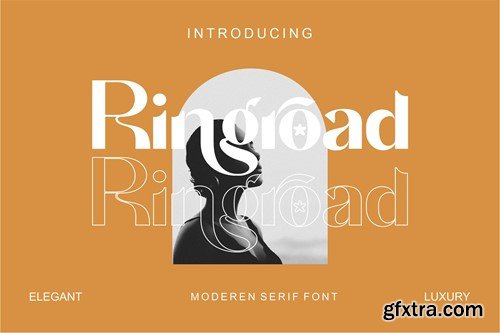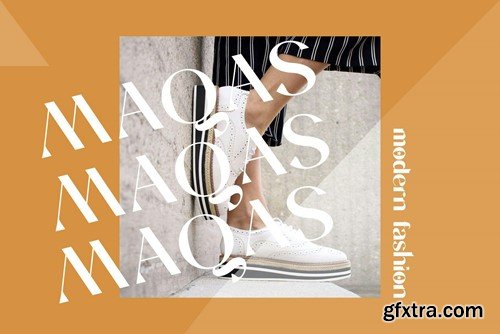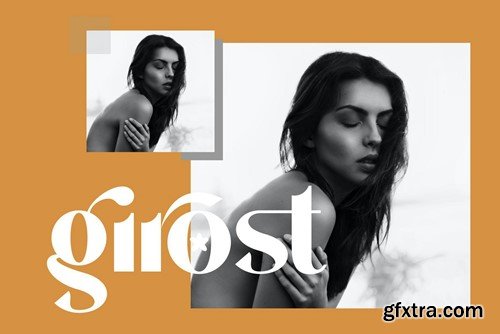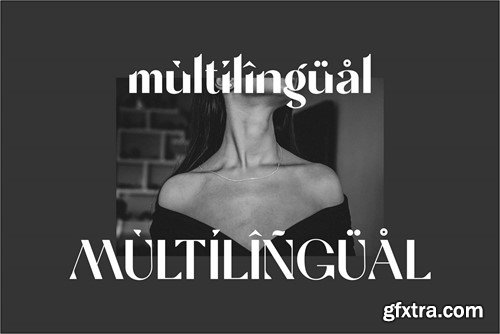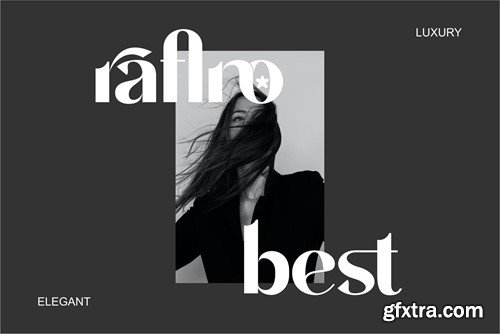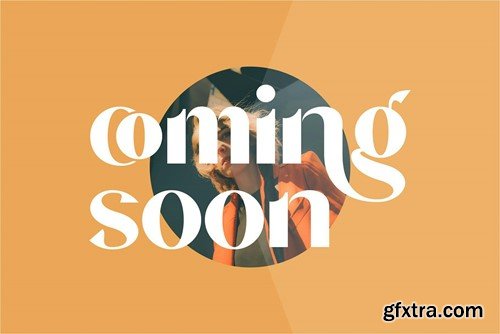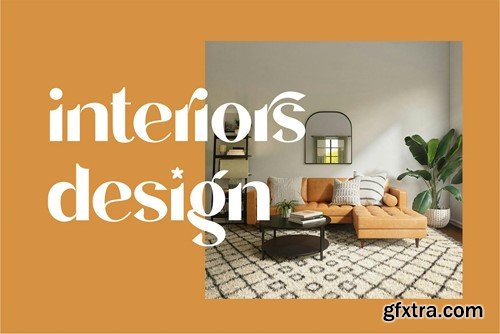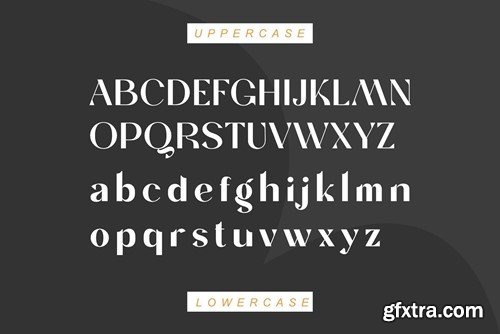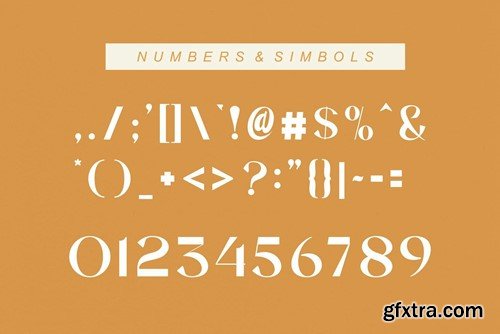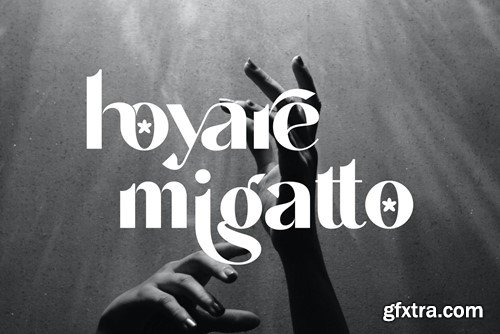
Ringroad Serif Font
Ringroad is a elegant and classy sans serif typeface – This font is both modern and nostalgic and works great for logos, magazine, social media. Already matched up and ready to be used together for your next design! For those of you who are needing a touch of elegant, stylish, classy, chic and modernity for your designs, this font was created for you! Ringroad was built with OpenType features and includes ligatures, numbers, punctuation, and it also supports other languages. What you get: